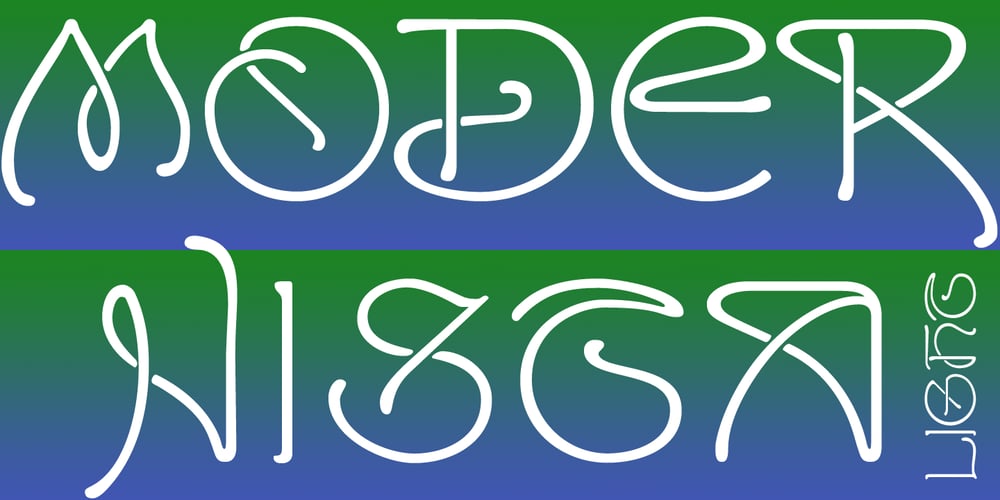
Modernista Font Family was designed by Gert Wiescher and published by Wiescher Design. Modernista contains 6 styles and family package options. Art Nouveau happened over Europe under different names. They called it “Jugenstil” in Germany, “Le style moderne” in France, “Sezessionsstil” in Austria and Eastern Europe, “Stile Liberty” in Italy and “Modernista” in Spain. Jugendstil in Germany is what started modern design and eventually led to the Bauhaus era. Art Nouveau is the most widely used name for this crazy period in our days. I always wanted to design my own Jugendstil typeface, but didn’t really get around doing it. Finally I found a set of initials by the German designer Peter Schnorr (1898) that I liked very much. I thought these elegant lightweight initials should be saved for the future and added two weights to it, the bold and the heavy. I chose the name “Modernista”, because it describes this modernistic typeface and is reminiscent to the era. Now I offer the tripleset of initials for the price of one. Your sort of Art Nouveau designer, Gert Wiescher